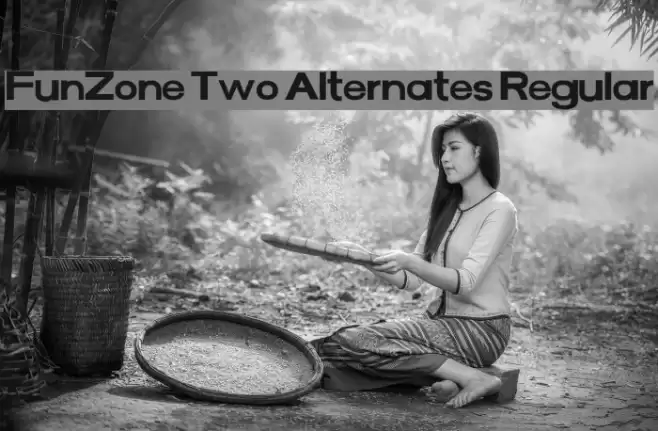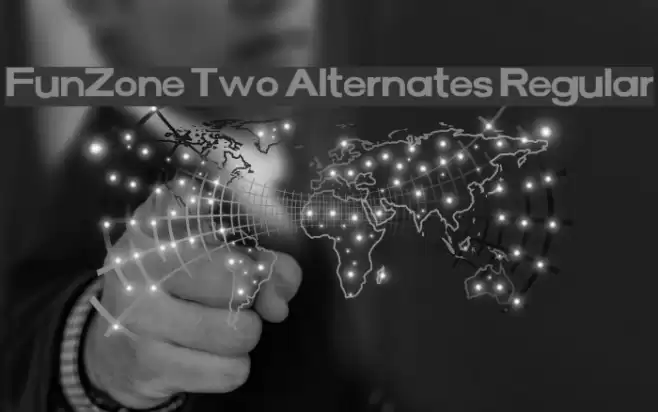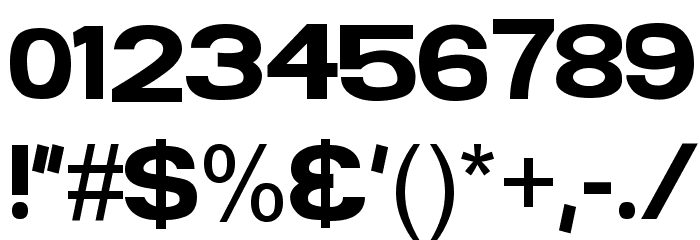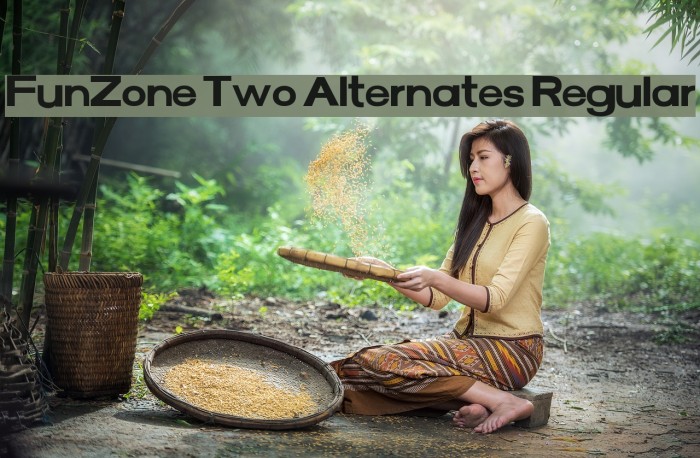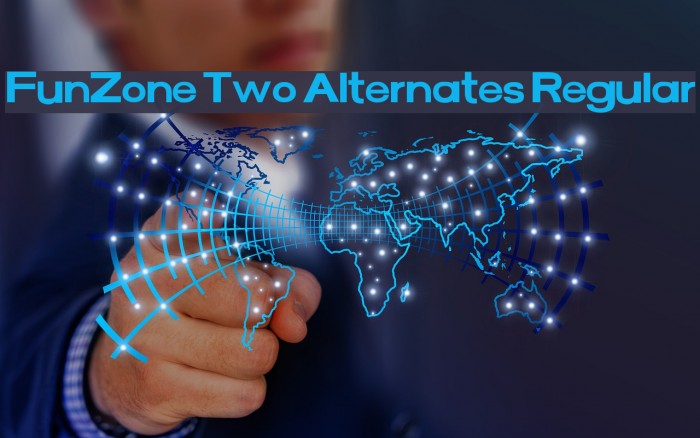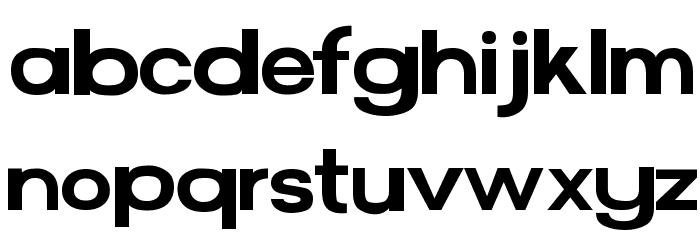
FunZone Two Alternates Regular Font
FunZone Two Alternates Regular Description
This font features a bold and modern sans-serif style with clean, geometric lines and a strong presence. The uppercase letters are uniform in height, providing a balanced and cohesive look. The lowercase letters maintain a consistent style, with rounded edges that add a touch of softness to the overall design. The numerals are clear and legible, making them suitable for various applications. Special characters are well-integrated, maintaining the font's overall aesthetic. This typeface is versatile, offering a contemporary feel that can enhance a wide range of design projects.
A bold, modern sans-serif font with geometric lines and rounded edges from Uncategorized fonts.